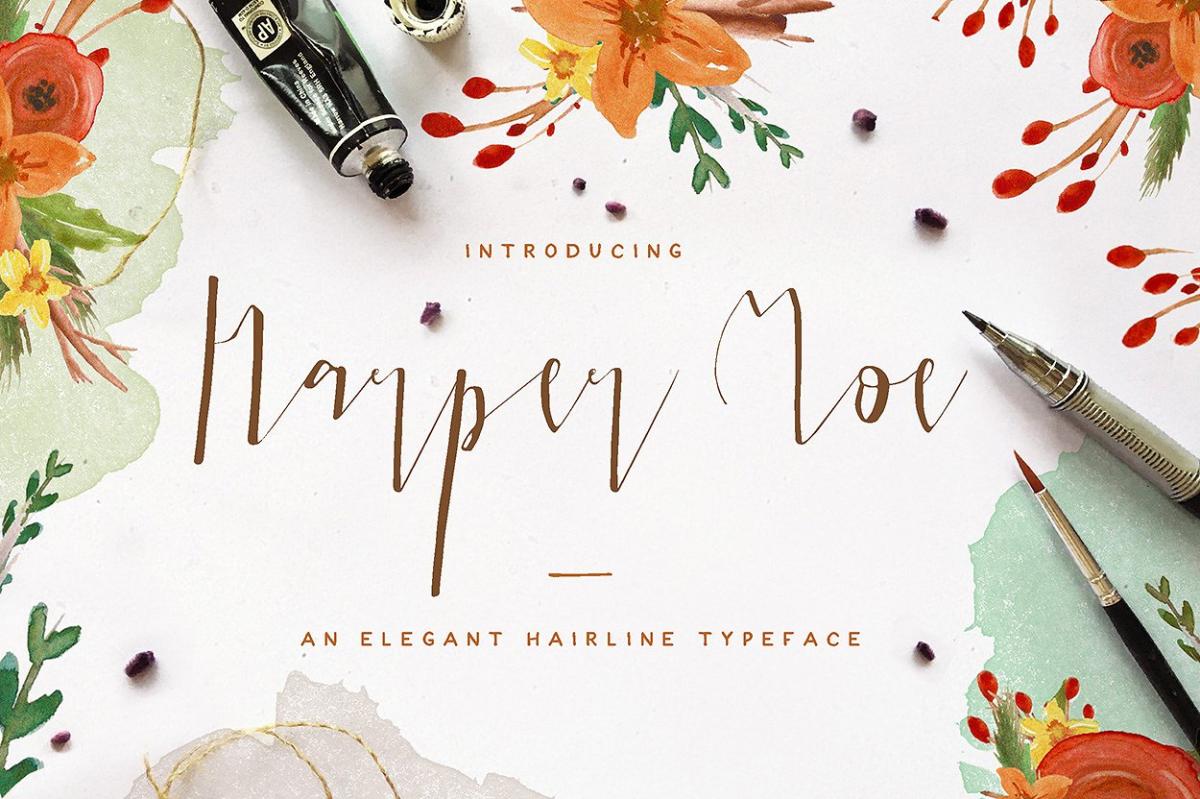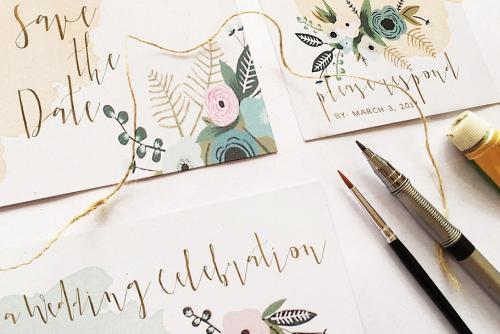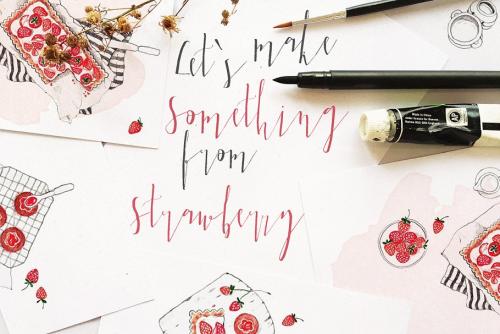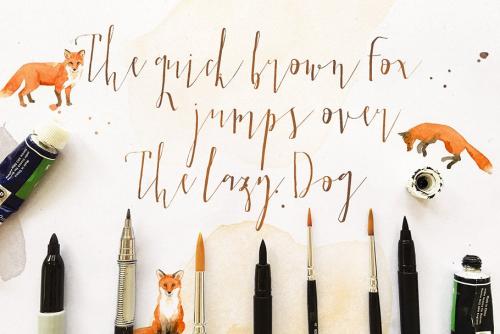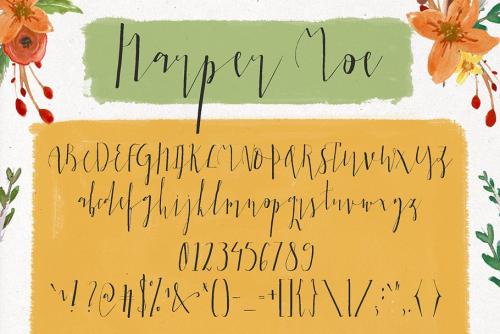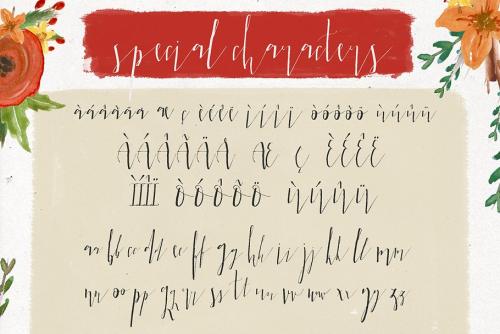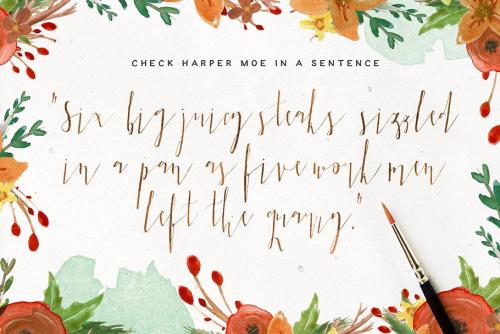
Harper Moe is a feminine typeface with pointy edge & mono line style. Created using thin pen and brush, Harper Moe is best used for: logo & branding, social media & blog, wedding design, cards & prints, anything you decide!
Harper Moe also comes with accented glyphs and ligature feature.